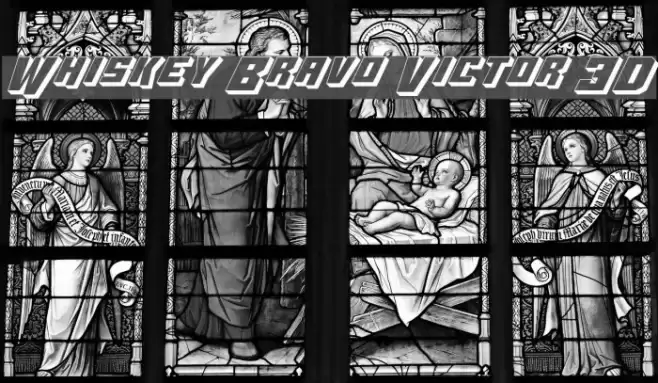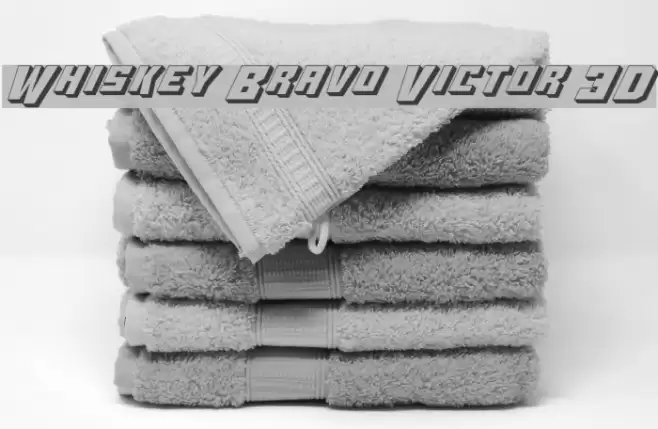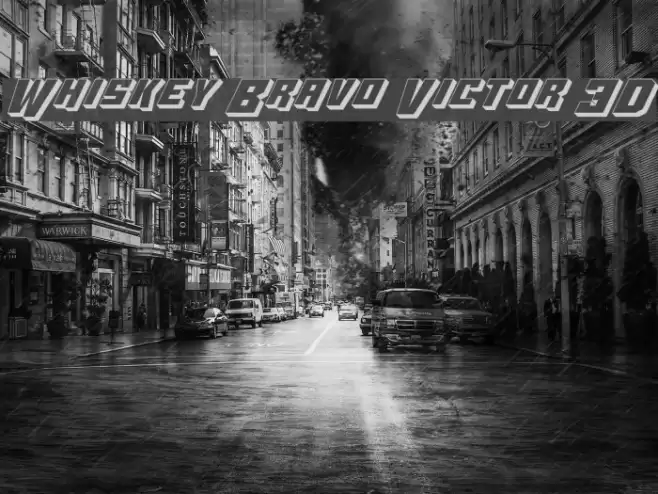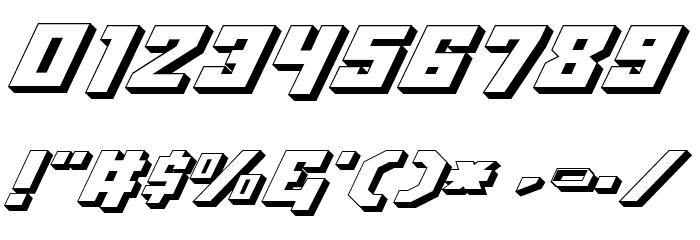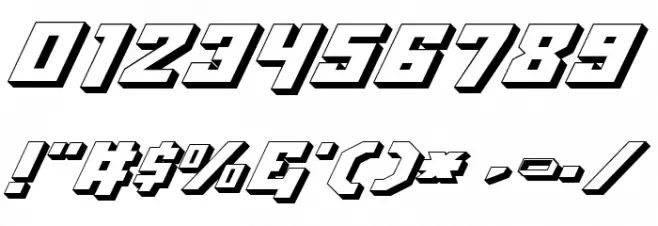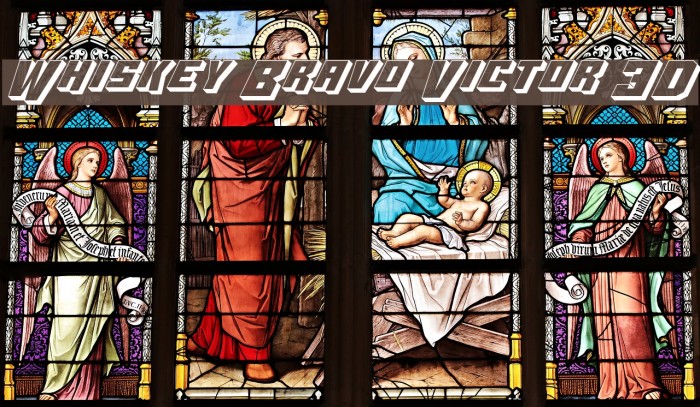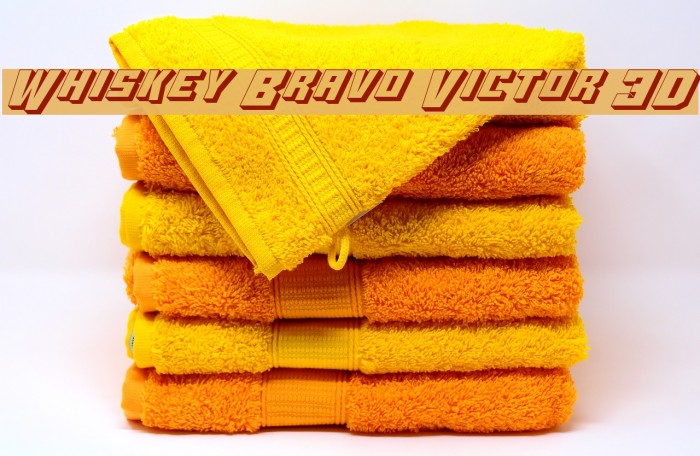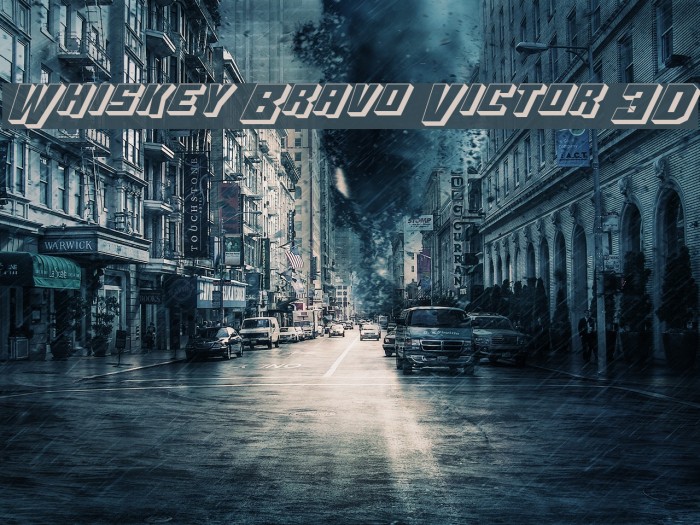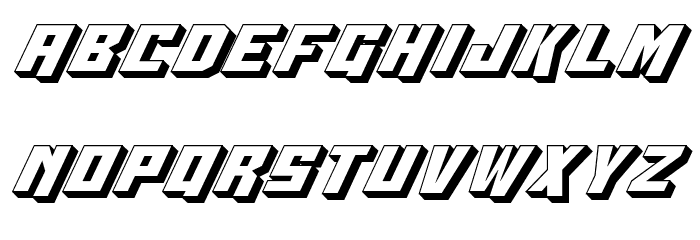
Whiskey Bravo Victor 3D Font
Whiskey Bravo Victor 3D Description
This font features a bold, three-dimensional design with a strong, impactful presence. The letters are capitalized and exhibit a blocky, geometric style with sharp angles and clean lines. The 3D effect is achieved through a shadow that gives the characters depth and a sense of movement. The font is highly legible and commands attention, making it ideal for use in designs that require a strong visual impact. The numbers and special characters maintain the same bold and dynamic style, ensuring consistency across all text elements.
A bold, 3D geometric font with a strong, impactful presence from Capitals fonts.
- Proposed Projects: Ideal for headlines, posters, logos, and any design requiring a bold statement.